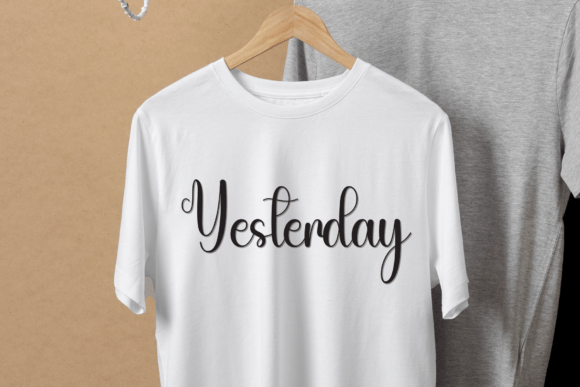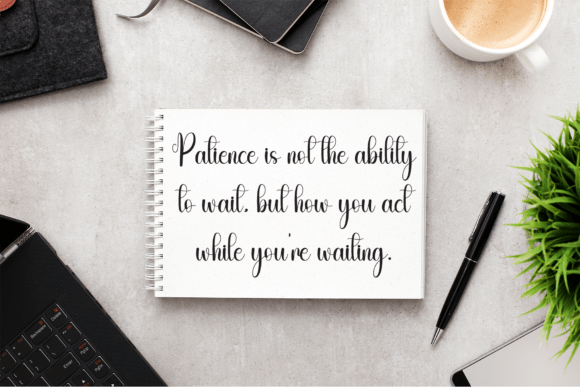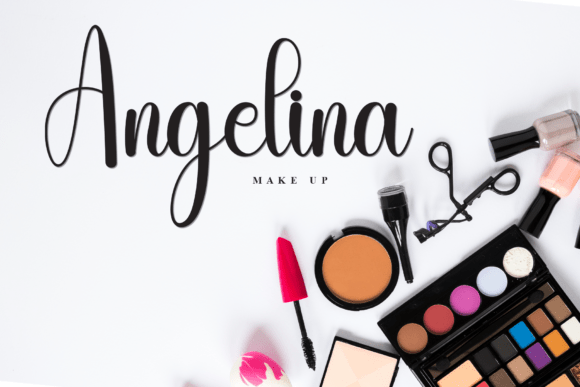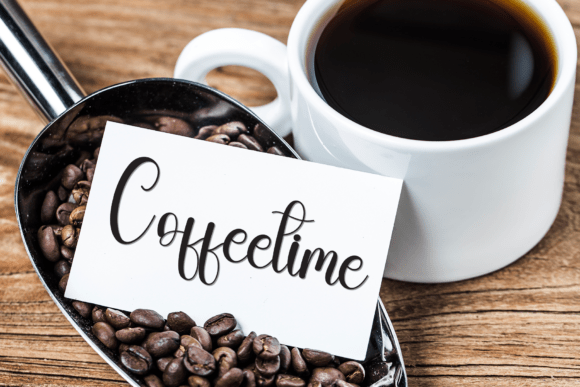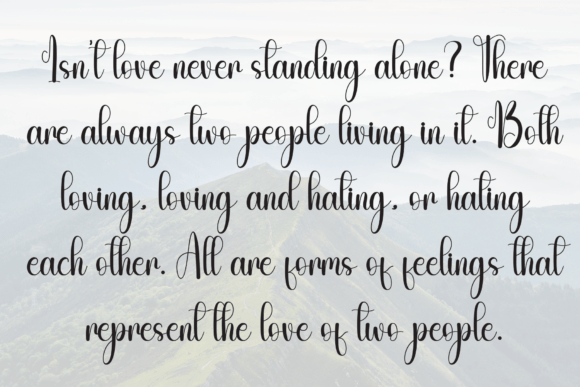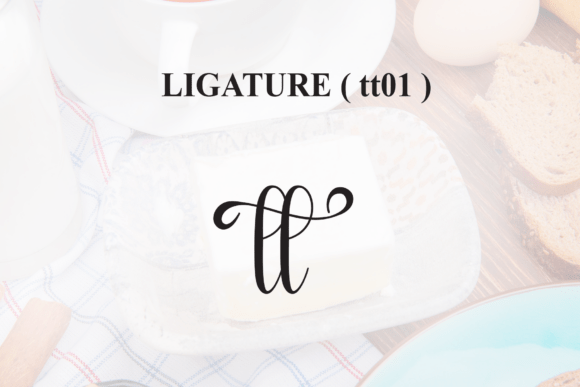
The Sweet Charm of Butter Font: A Designer’s Delight
Have you ever been in the middle of a design project, and suddenly, you’re stuck on finding the perfect font? I recall a recent experience while working on a wedding invitation project. My client wanted a font that was both elegant and playful, but I just couldn’t seem to find the right fit. That’s when I stumbled upon the adorable Butter handwritten display font. Its delightful and amusing personality instantly won me over, and I knew I had found the perfect match.
• ✅ The font’s sweet and friendly aura makes it perfect for crafting wedding invites, greeting cards, or any design aiming for a splash of fun.
• ✅ The PUA encoding makes it easy to access all characters from your character map or font viewer.
• ✅ The font’s unique and playful personality adds an irresistibly cute and enjoyable dimension to your creations.
• ⚠️ The font’s playful nature might not make it the best fit for more formal or corporate designs.
• ⚠️ Some users might find the font’s charm a bit too whimsical for certain projects.
The Story Behind Butter Font: A Designer Inspiration
Butter Font was designed with the intention of creating a font that would bring a touch of sweetness and friendliness to any design project. The designer aimed to create a font that would be perfect for crafting wedding invites, greeting cards, and other designs that require a playful and charming personality. The result is a font that is both unique and delightful, making it a great addition to any designer’s font collection.
A: PUA (Private Use Area) encoding allows you to access all characters in the font from your character map or font viewer. This means you can easily use the font’s unique glyphs and stylistic alternates to add personality to your designs.
Q: Is Butter Font suitable for body text?
A: While Butter Font is a beautiful and charming font, it might not be the best choice for body text due to its playful nature. It’s better suited for headings, titles, and short paragraphs.